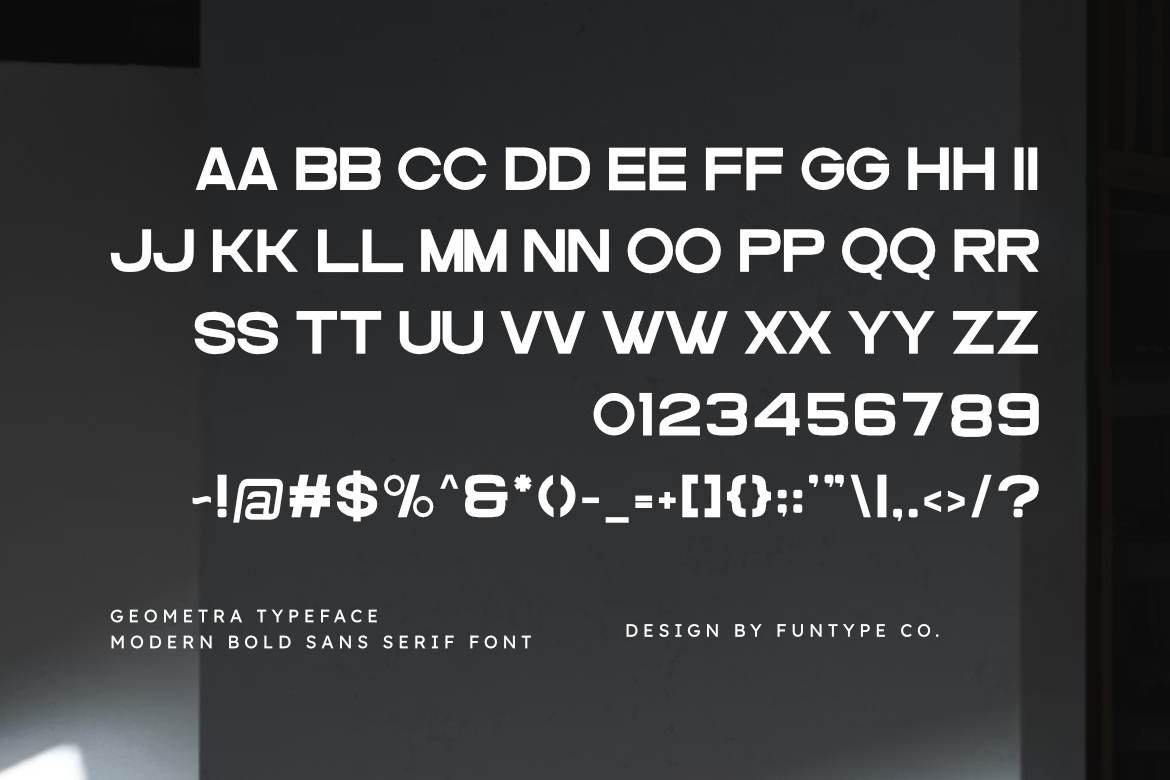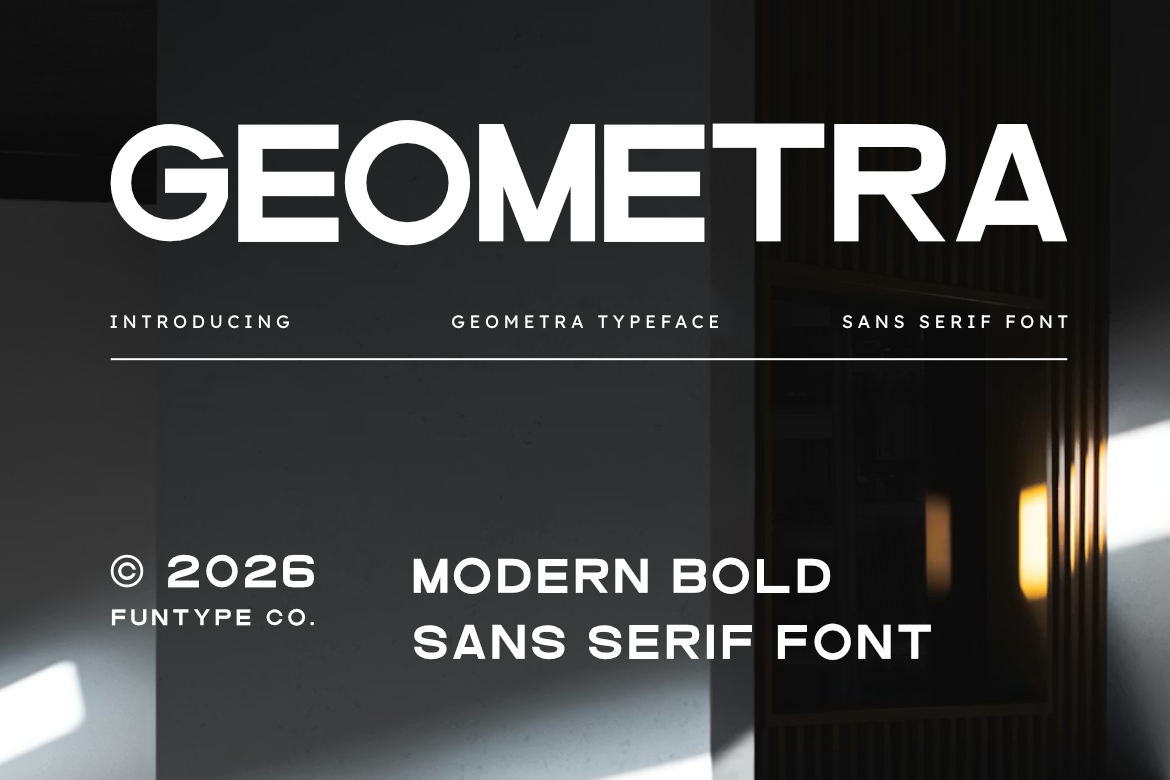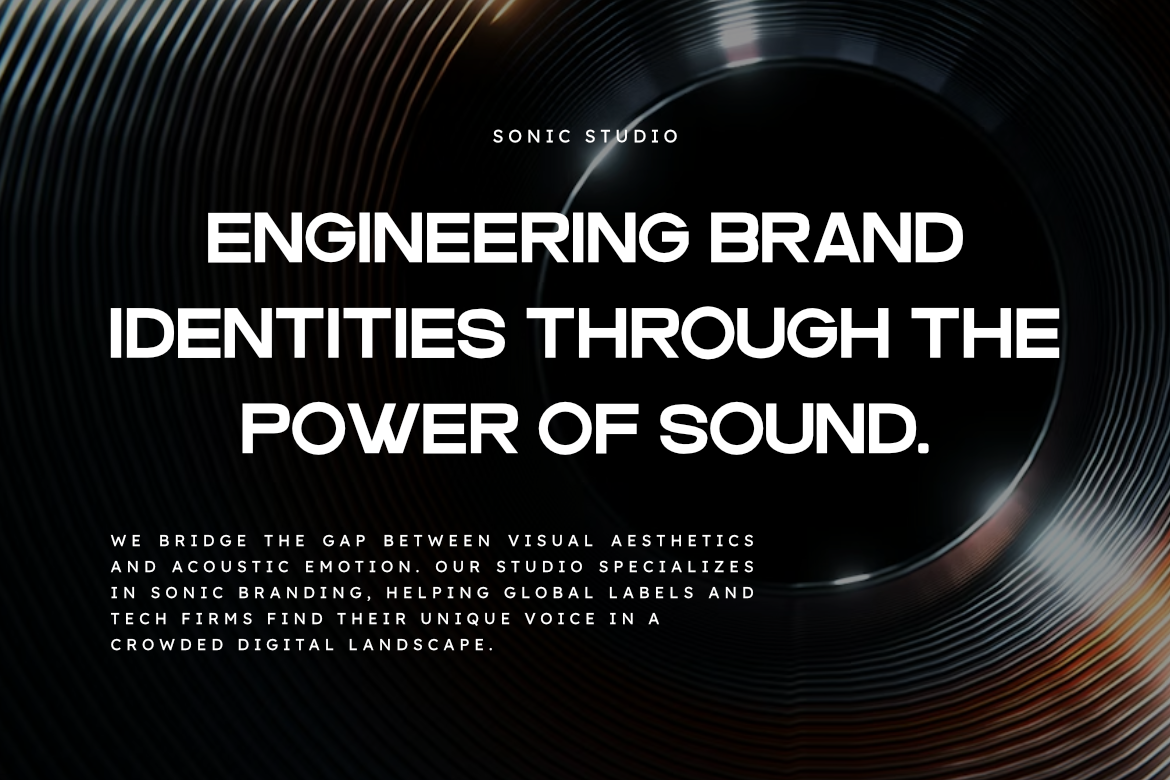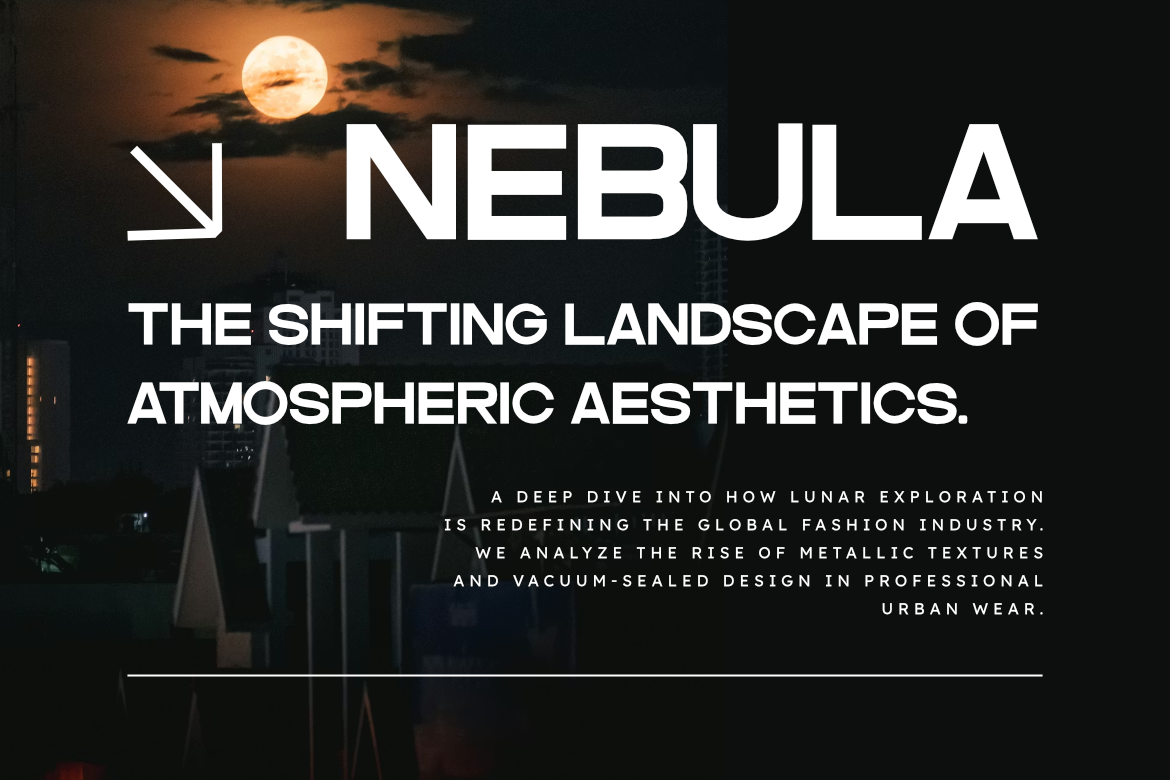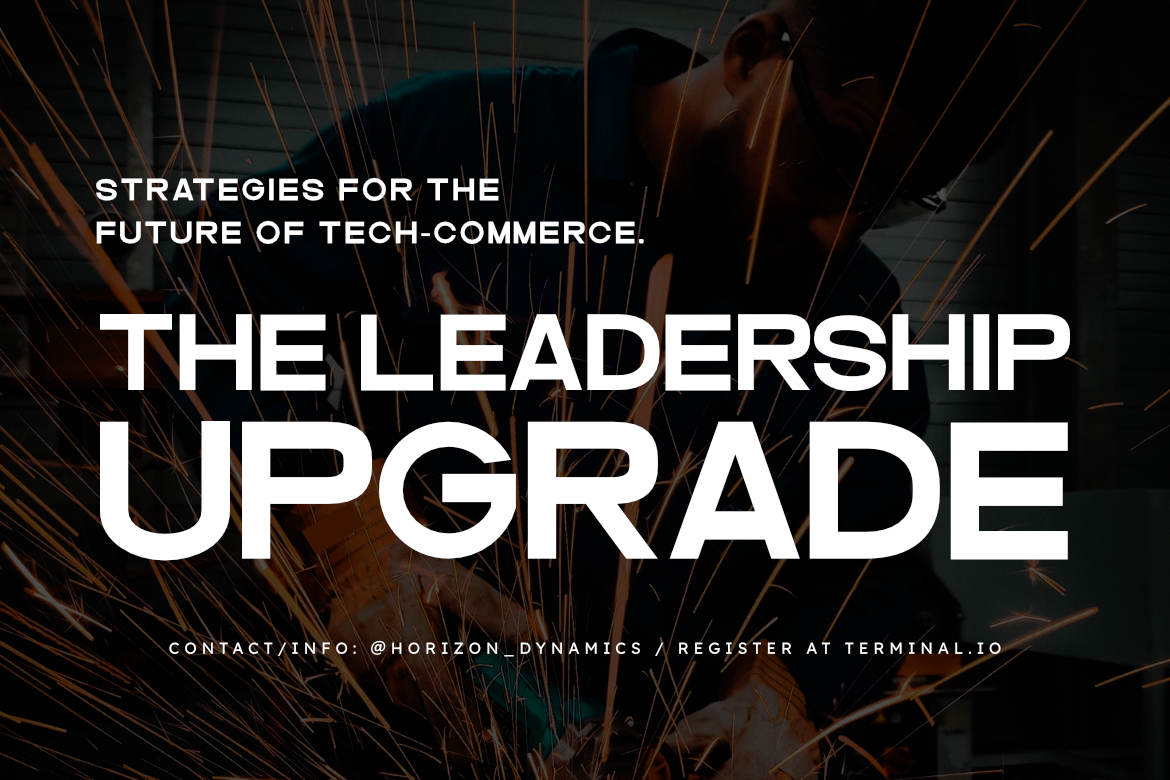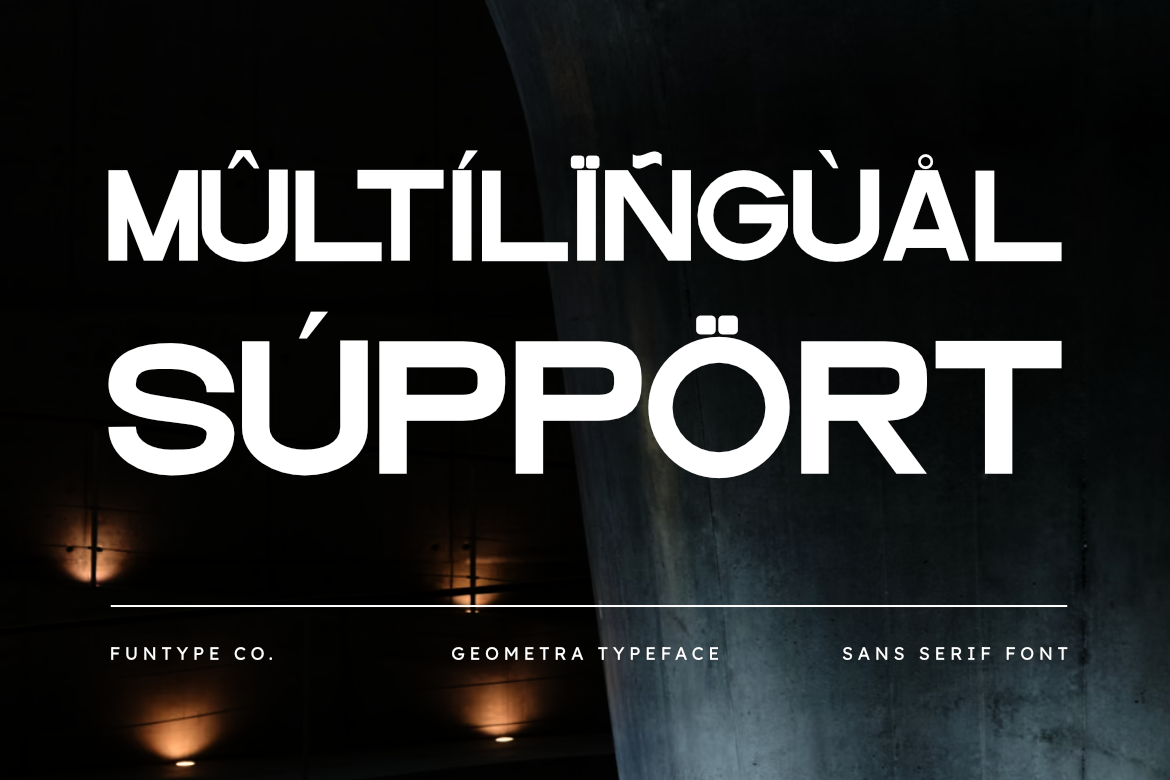
Geometra – Modern Bold Sans Serif Font for Modern Brand Identity
Geometra is a sophisticated and powerful modern bold sans serif font, thoughtfully designed to capture the essence of geometric precision and contemporary storytelling. With its solid structure and balanced clean lines, Geometra offers a professional aesthetic that brings a touch of commanding clarity to any creative project.
This font is the ideal choice for designers looking to add a professional yet high-impact touch to their work. Whether you are crafting a striking corporate logo, a sleek technology brand identity, or bold editorial layouts, Geometra provides a seamless blend of modern flair and timeless authority.
- Modern Bold Sans Design: Optimized for a high-end, solid, and professional look.
- Refined Geometric Letterforms: Meticulously crafted for superior legibility and balance.
- Commanding Presence: Perfect for headlines, branding, and large-scale displays.
- Professional Aesthetic: High-end finish for modern corporate and tech identity design.
Best Used For: Corporate branding, technology logos, modern web headers, impactful advertising, architectural signage, and sophisticated editorial design.